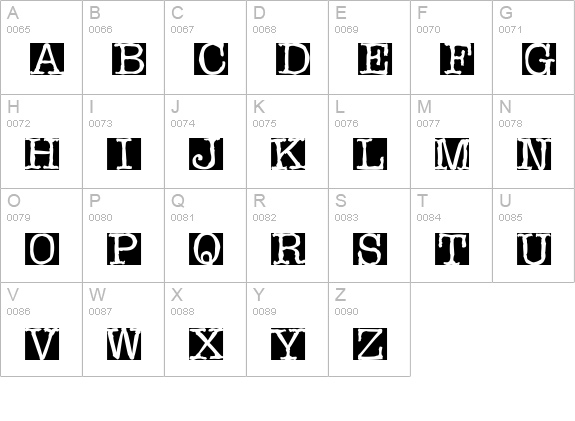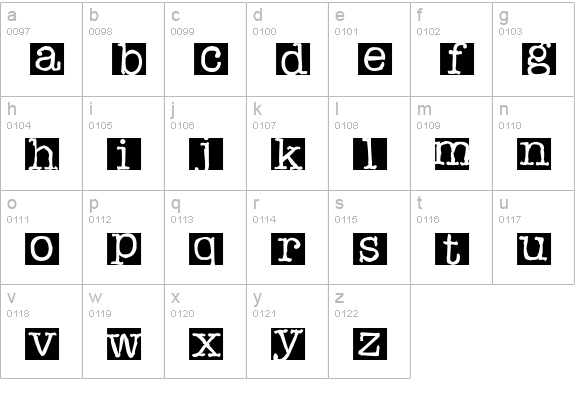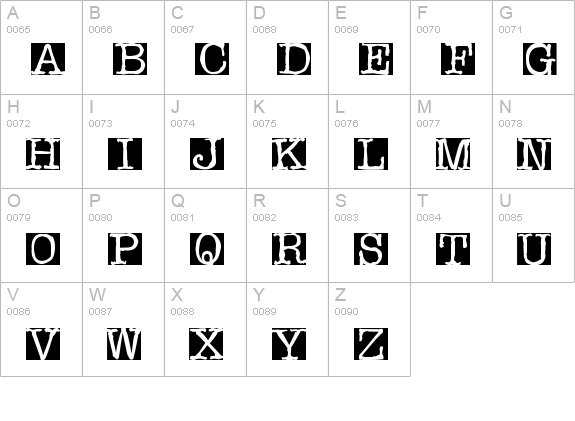
Rubberstamp Font Details
The Rubberstamp font is a charming and versatile typeface that exudes a sense of authenticity and nostalgia. With its rough edges and uneven strokes, this font perfectly captures the look and feel of a classic rubber stamp imprint. Whether you're looking to add a touch of vintage flair to your designs or create a handcrafted aesthetic, Rubberstamp font is the perfect choice. Best of all, Rubberstamp font is available for free download at FontsMarket.com. Simply visit the website and start using this unique and eye-catching font in your projects today. Let the Rubberstamp font bring a touch of old-world charm and character to your designs, making them stand out from the crowd.